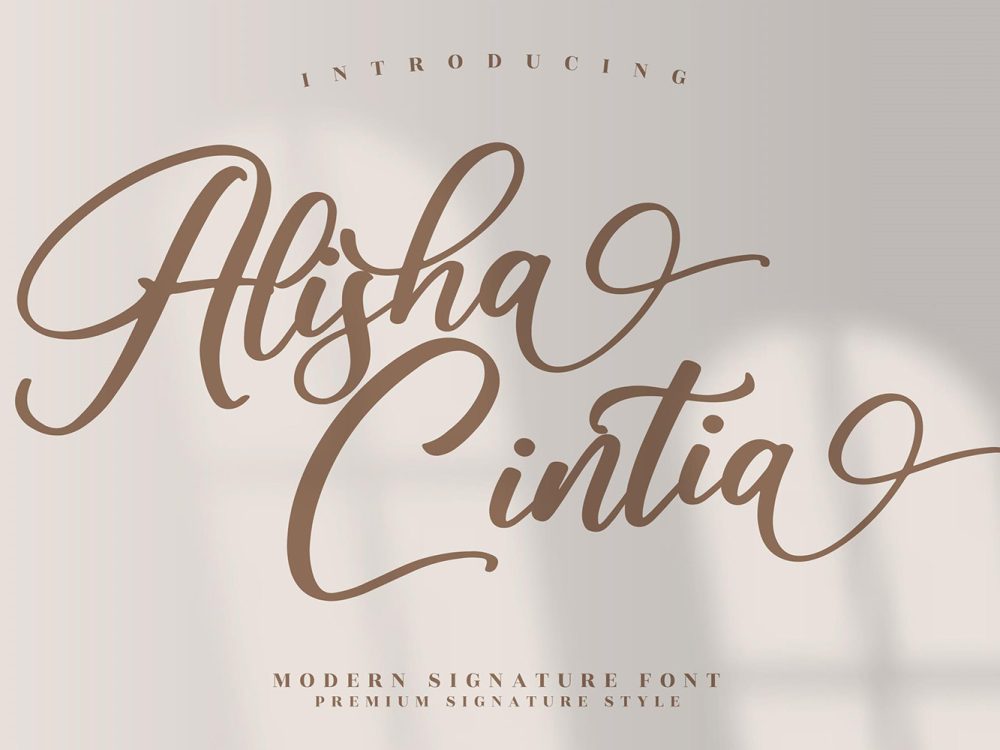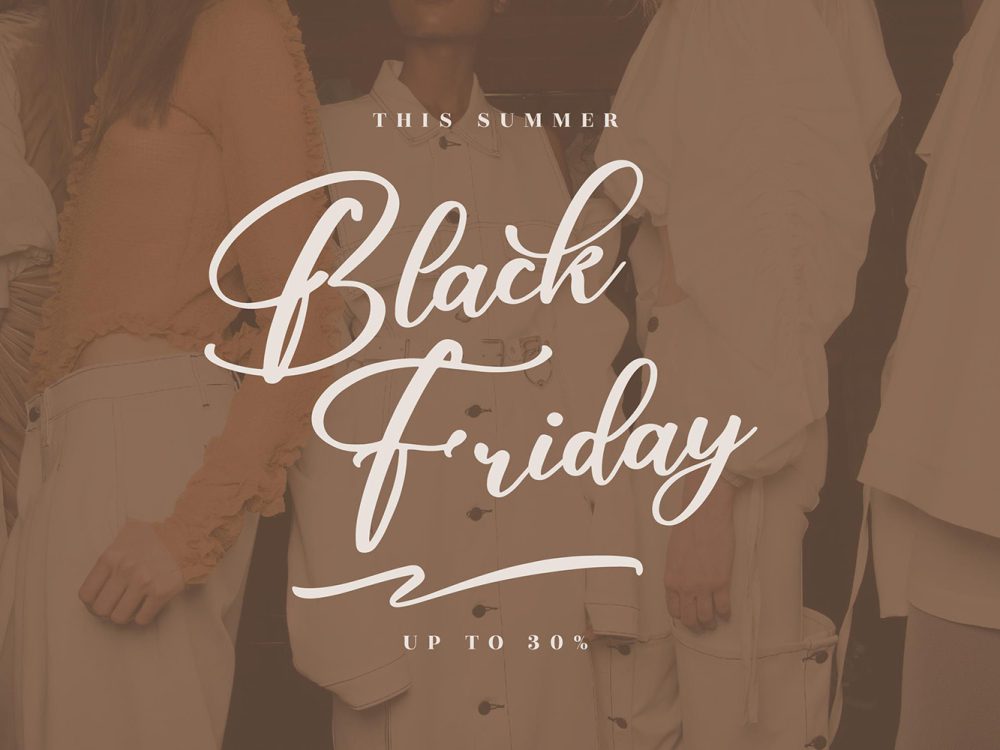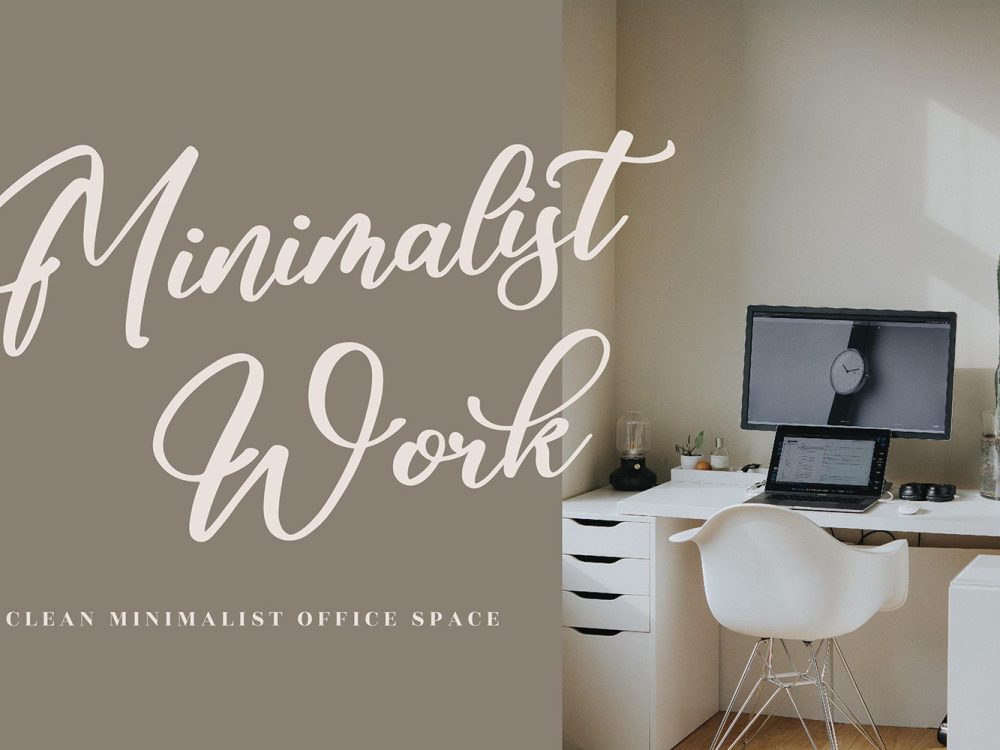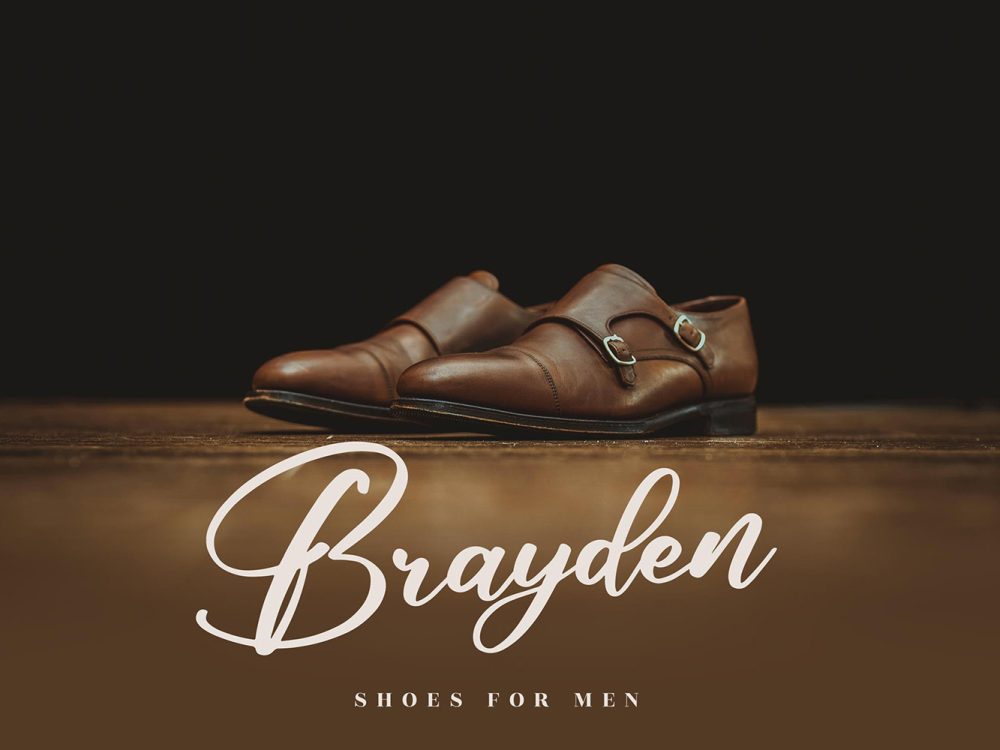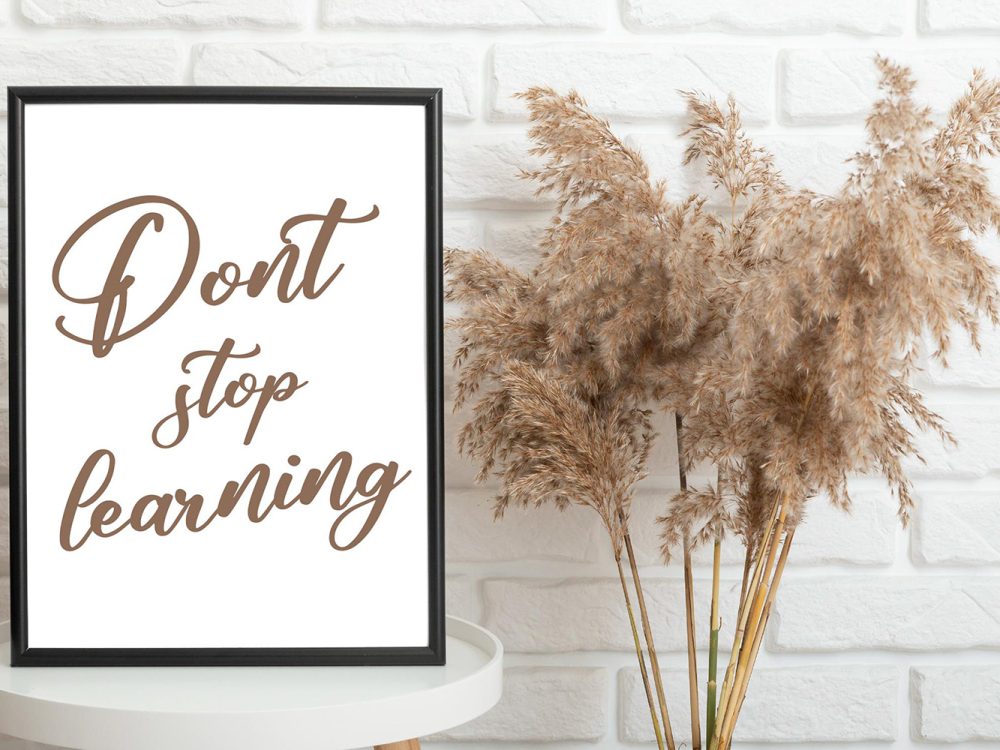
Alisha Cintia Free Font
Alisha Cintia Free Font introduces a charming script font, showcasing playful and enchanting characters that gracefully dance along the baseline. If you like it don’t forget to check out the full version.